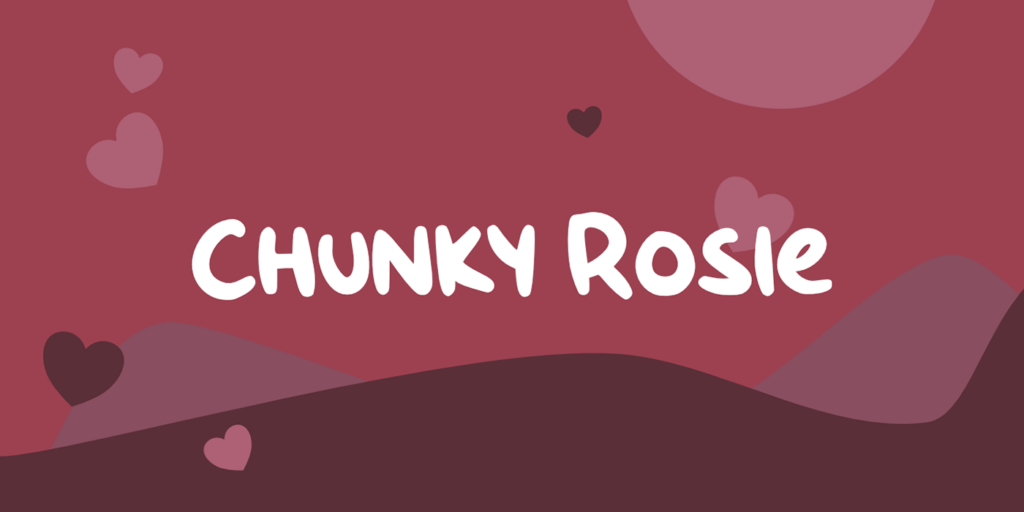
Inspired by a chunky character, we present to you Chunky Rosie, a handwritten with chunky characters comes with alternates and multilingual glyphs to help people around world with that unique accent.
Chunky Rosie Free Font